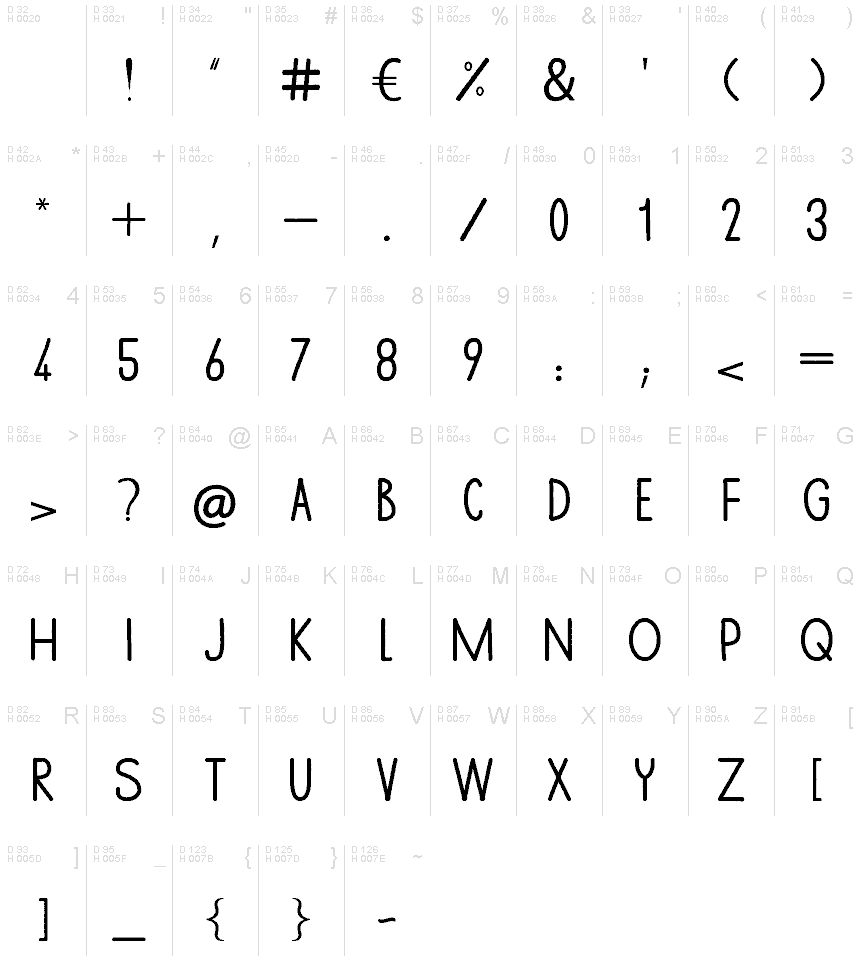
picard
Picard font, a creation of Raptus (creativi), embodies a modern handwritten style with a whimsical and artistic vibe. Its condensed form adds to its casual and contemporary look, making it stand out in any design it graces. The free handwritten font will beautifully communicate your enticing texts in an almost lyrical manner.
Potential use cases are branding projects, printed ads, book covers, motivational posters, product packaging designs, social media posts, inspirational quotes design and personal stationery. Other ideas will include album covers design that require the expression of depth and feel.